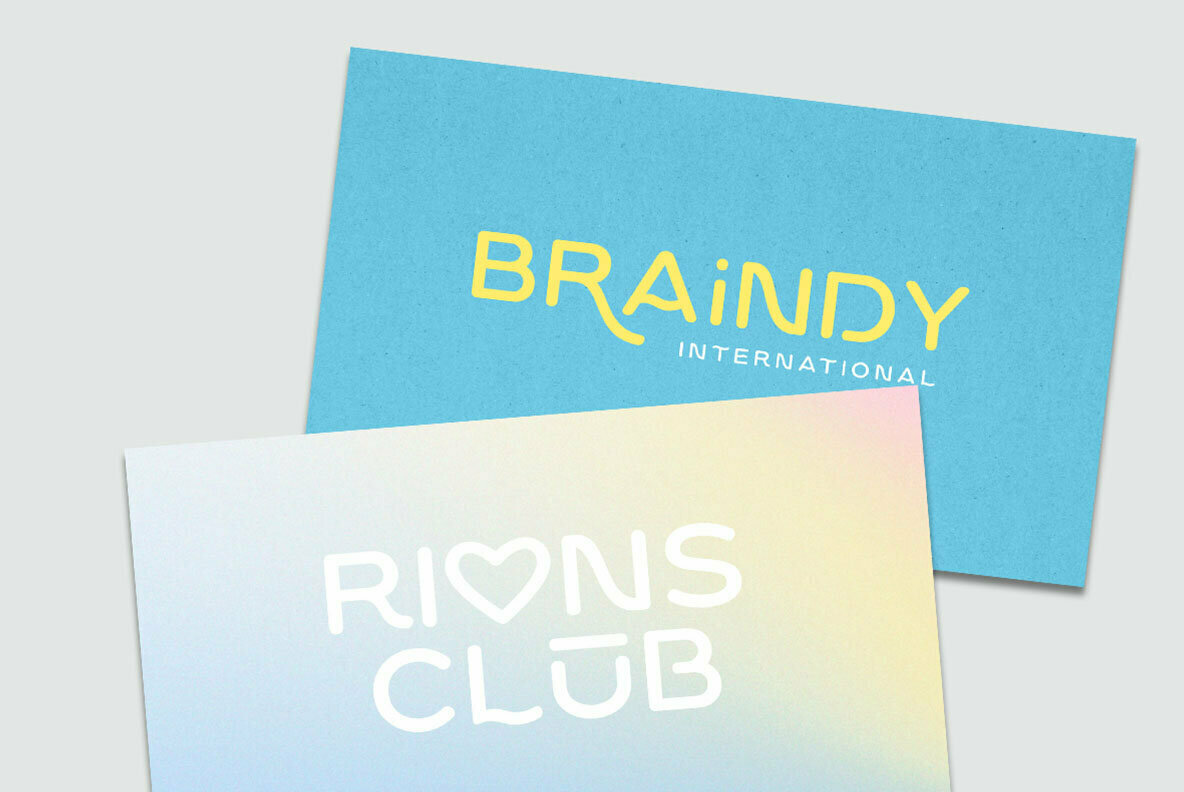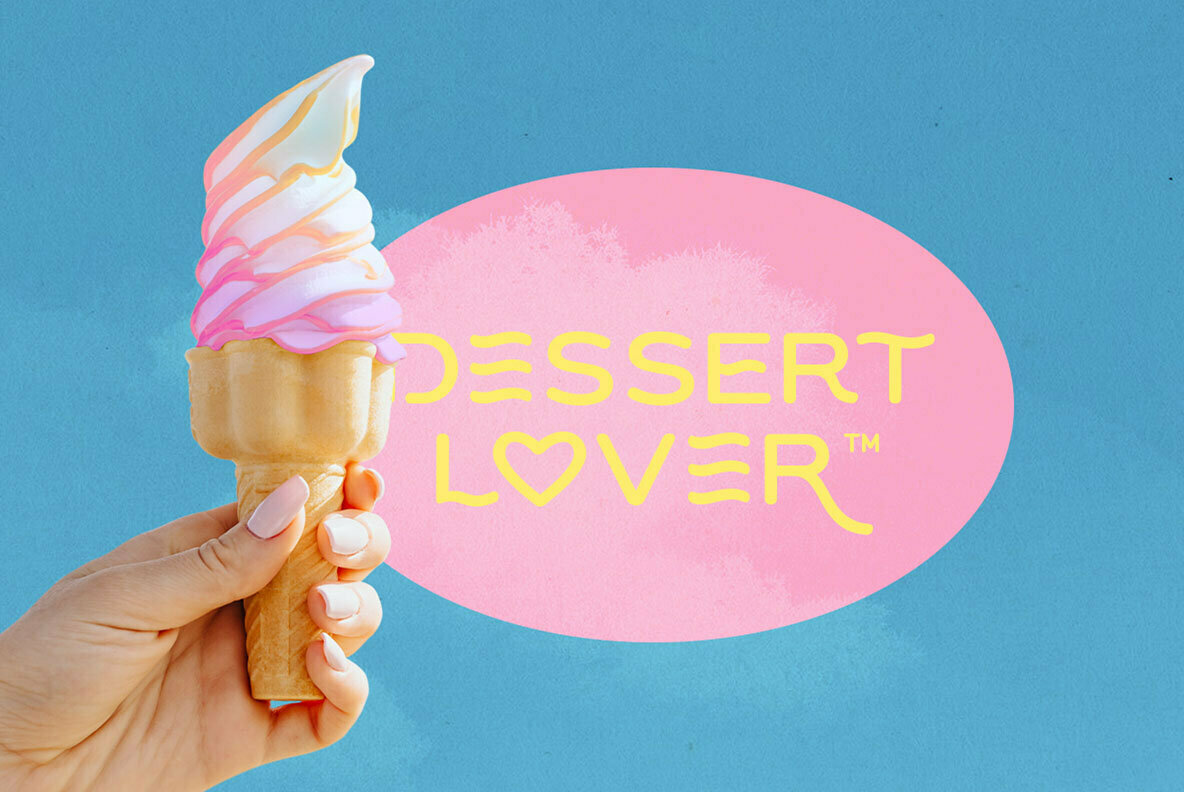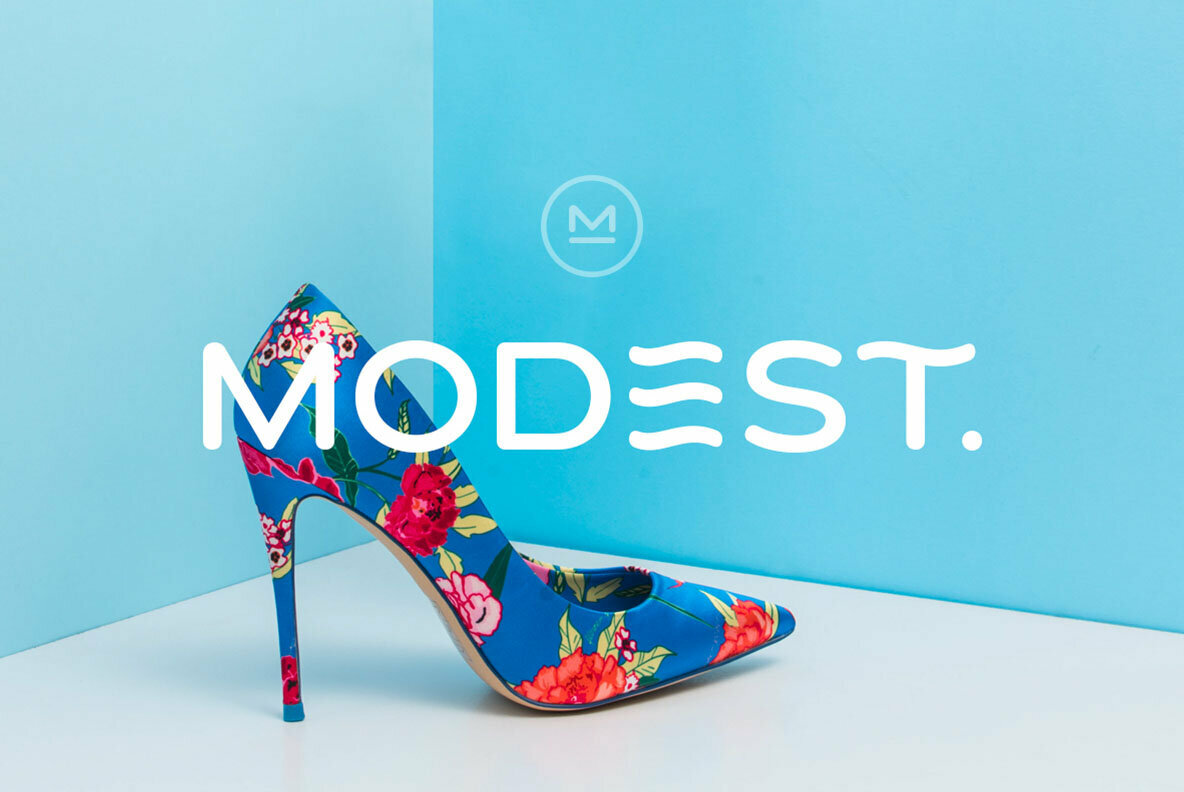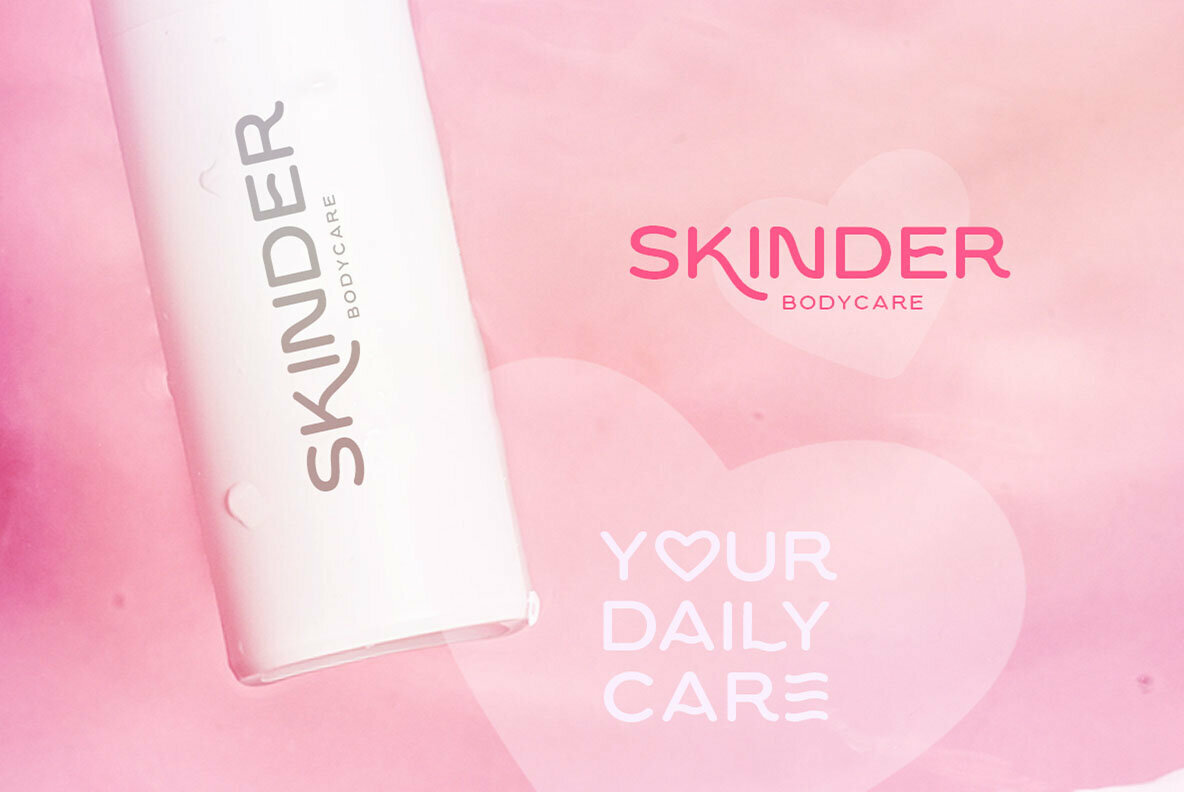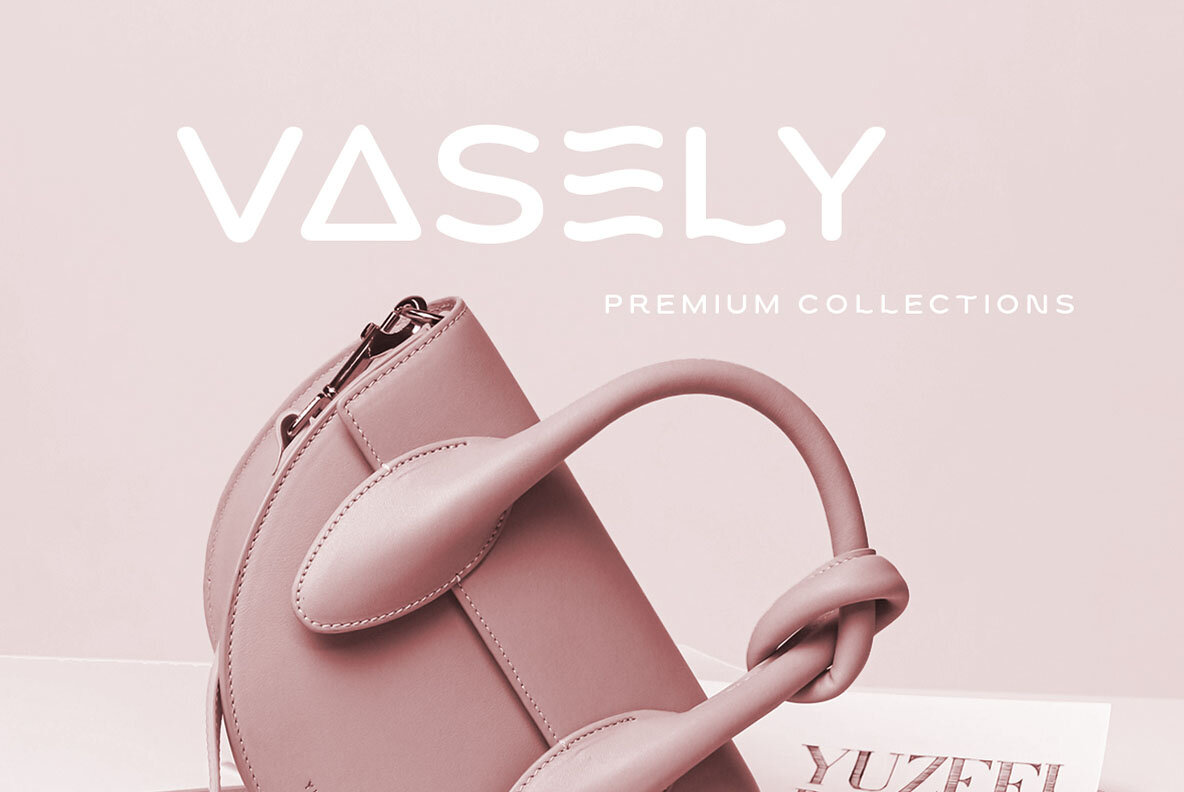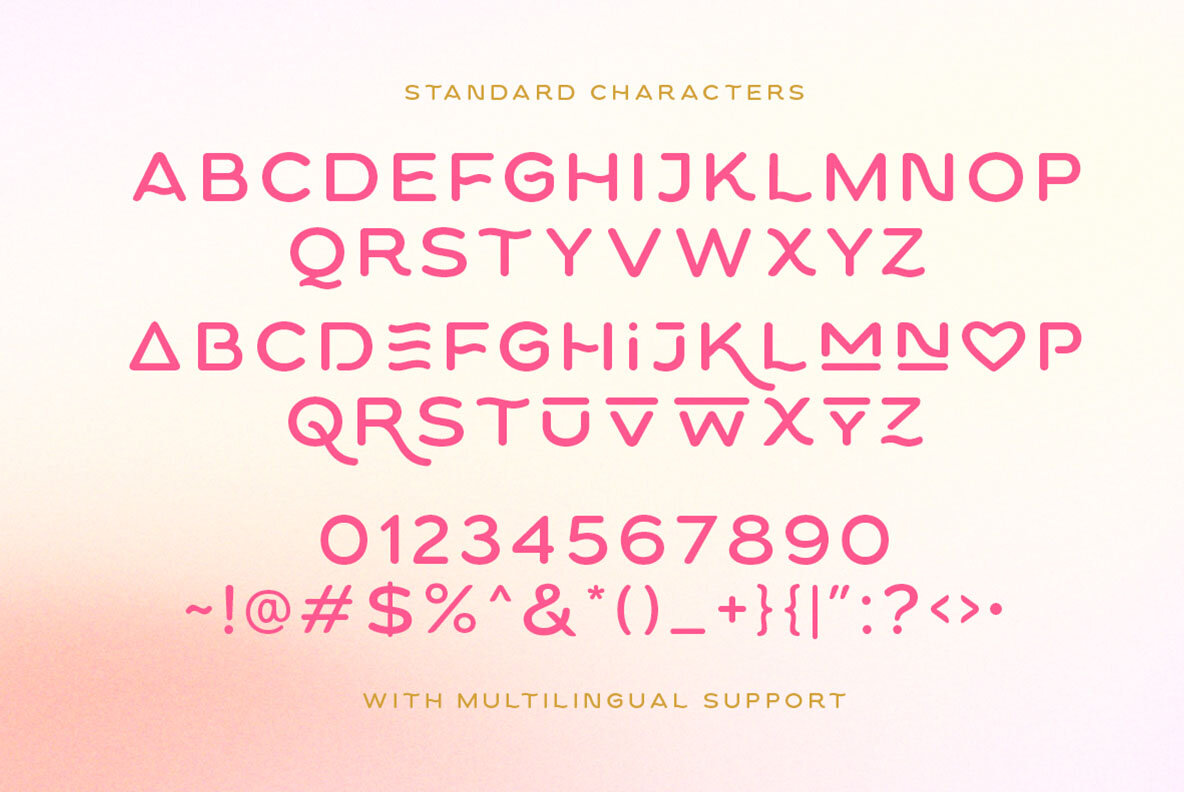
Klopers Font
Klopers Regular
Simplicity and elegance define Klopers, a minimalist logo font characterized by its distinctive shapes. Designed to bring a modern aesthetic to your projects, Klopers excels in creating logos that stand out with sophistication.Klopers: Minimalist Font with Unique Flair